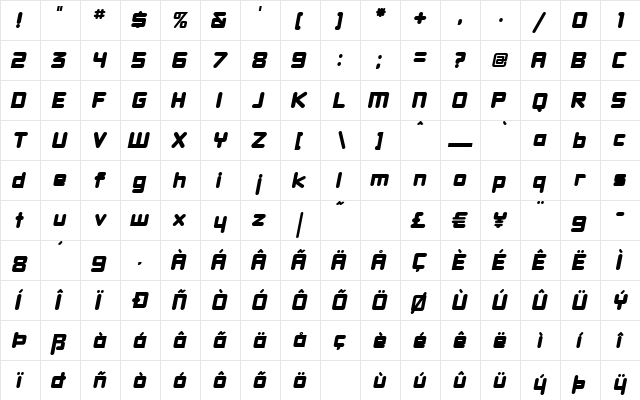
DBXLNightfever WideItalic
Design Context for DBXLNightfever Typeface
DBXLNightfever takes a measured approach to typography — its balanced proportions and neutral character make it a reliable workhorse for both digital and print work. Its italic angle brings a sense of urgency and motion to the letterforms.